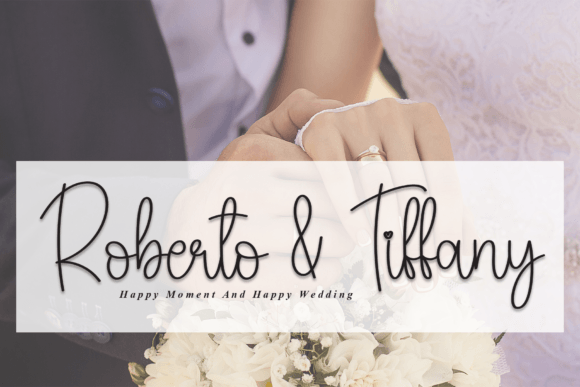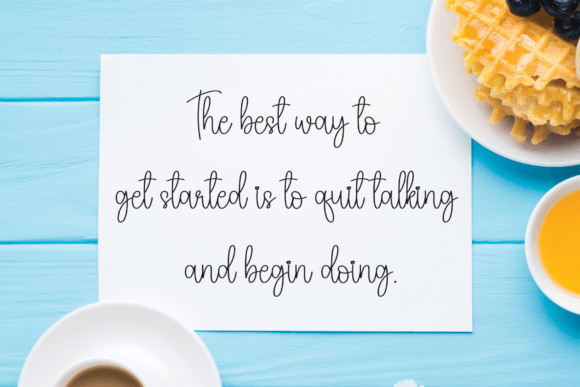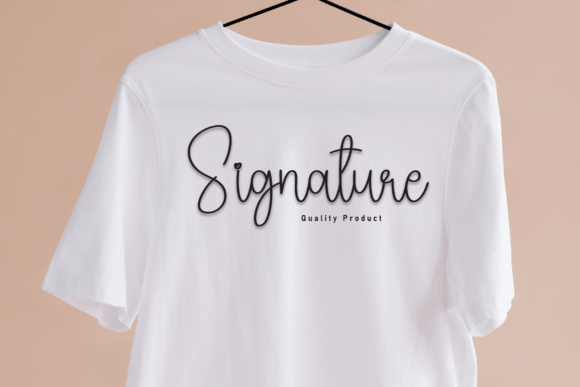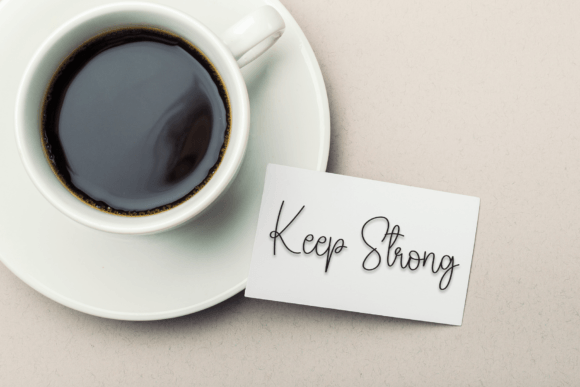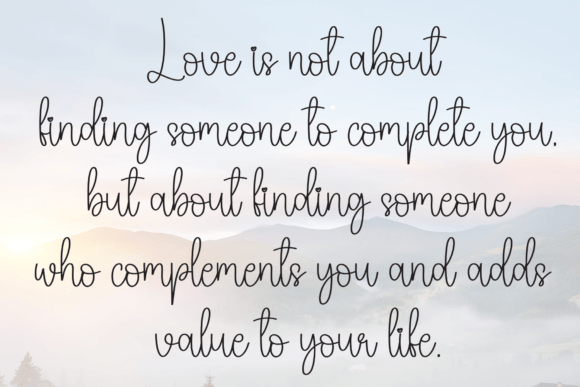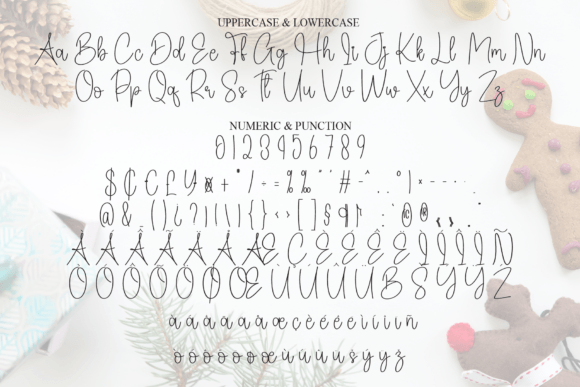
The Magic of Gingerbread Font: A Designer’s Delight
I’ll never forget the time I was working on a holiday card project, and my client asked for a font that was both elegant and playful. I scoured the internet, tried out dozens of fonts, but nothing seemed quite right. That was until I stumbled upon the Gingerbread font. Its flowing, smooth lines and whimsical feel instantly captured the essence of the holiday season. In that moment, I knew I had found the perfect fit.
A Personal Review of Gingerbread Font
So, what makes Gingerbread font so special? Let’s dive into the good stuff! 😊
- ✨ Elegant and playful at the same time – a rare find in the world of fonts!
- ✅ Flowing, smooth lines that give it a personal and artistic touch
- 💫 Perfect for creating beautiful designs like cards, logos, or invitations
- 🎨 Highly versatile and can be used for a wide range of creative projects
While Gingerbread font is a stunning addition to any design, there are a few things to keep in mind:
- ⚠️ May not be suitable for very small font sizes, as some details may get lost
- 🤔 Limited availability of certain characters or glyphs, but this can be addressed with OpenType features
The Backstory of Gingerbread Font
While the origins of Gingerbread font are shrouded in mystery, it’s easy to imagine a designer sitting by the fireplace, surrounded by sweet treats and inspiration. Perhaps they were experimenting with different letterforms, trying to capture the essence of the holiday season. And thus, Gingerbread font was born – a delightful blend of elegance and playfulness.
| Font Name | Gingerbread Font |
| What makes Gingerbread font so special? | Gingerbread font is a unique blend of elegance and playfulness, making it perfect for designs that need a touch of sophistication and whimsy. |
| Is Gingerbread font suitable for body text? | While Gingerbread font is stunning, it’s best suited for headlines, titles, or short paragraphs. For longer body text, a more traditional font might be more readable. |